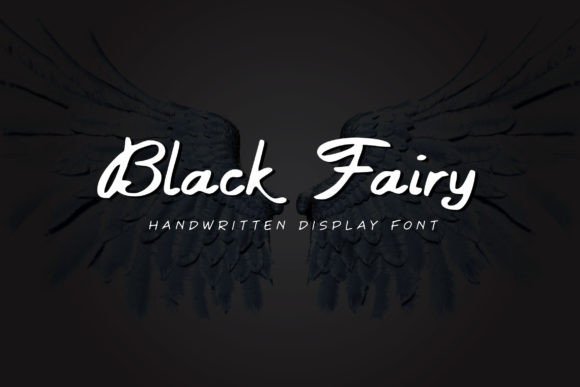
Unlock the Magic of Black Fairy Font
Have you ever sat in front of your computer, staring at a blank page, waiting for inspiration to strike? It’s a familiar feeling for many designers and creatives. But what if you had the perfect tool to spark that creative fire? Enter the Black Fairy Font, a delightful and versatile handwritten font that’s sure to add a touch of magic to your next project.
This charming font is designed to bring a sense of freshness and whimsy to any design, making it a valuable asset for designers of all levels. Whether you’re working on a blog post, a social media campaign, or a marketing brochure, the Black Fairy Font is sure to elevate your creation and leave a lasting impression.
Black Fairy Font Key Features
- Font Family: Black Fairy is a unique, hand-drawn font with a touch of elegance and mystery.
- Font Size: The font comes in a single weight, making it suitable for a wide range of design projects, from headings to body text.
- Unique Characteristics: Distinctive, whimsical flourishes and lines that evoke a sense of magic and fantasy.
Designer Review: Black Fairy Font
✨ I was initially drawn to Black Fairy Font’s unique blend of gothic and mystical elements. The font’s intricate details and bold lines make it perfect for adding an air of mystery to any design project. The font’s versatility shines through in its various weights and styles, allowing for a wide range of creative applications.
✨ Another notable aspect of Black Fairy Font is its excellent legibility. Despite its complex design, the font remains clear and easy to read, even at smaller font sizes. This makes it an excellent choice for body text, headings, and titles.
- Some users may find the font’s design too ornate or overbearing, which can be a challenge to work with.
- The font’s mystic and gothic elements may not be suitable for all design projects or target audiences.
Overall, Black Fairy Font is a bold and intriguing typeface that can add a touch of magic to any design. While it may have some limitations, its unique design and excellent legibility make it a great choice for designers looking to create eye-catching and memorable designs.
The Black Fairy Font is ideal for creating mystical, magical, and whimsical designs. Some common use cases include:
- Magic-themed party invitations and decorations.
- Mystical and spiritual artwork and illustrations.
- Whimsical children’s book covers and illustrations.